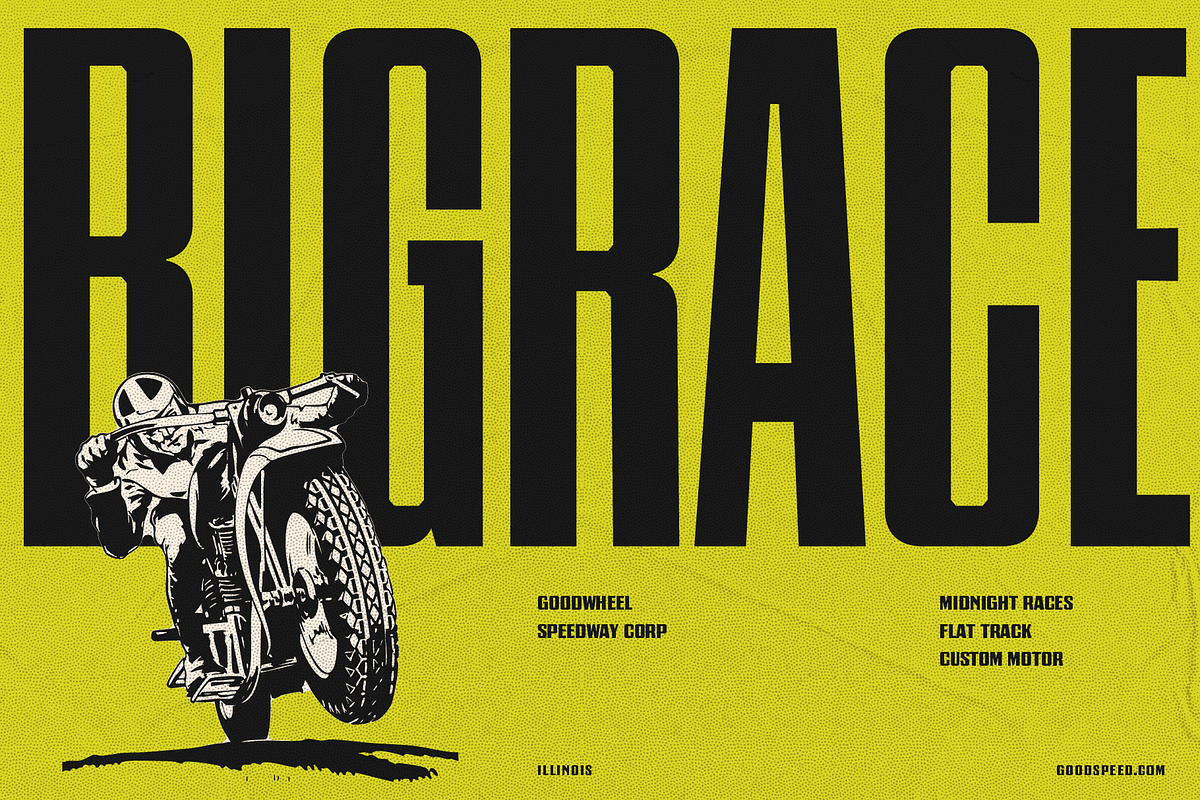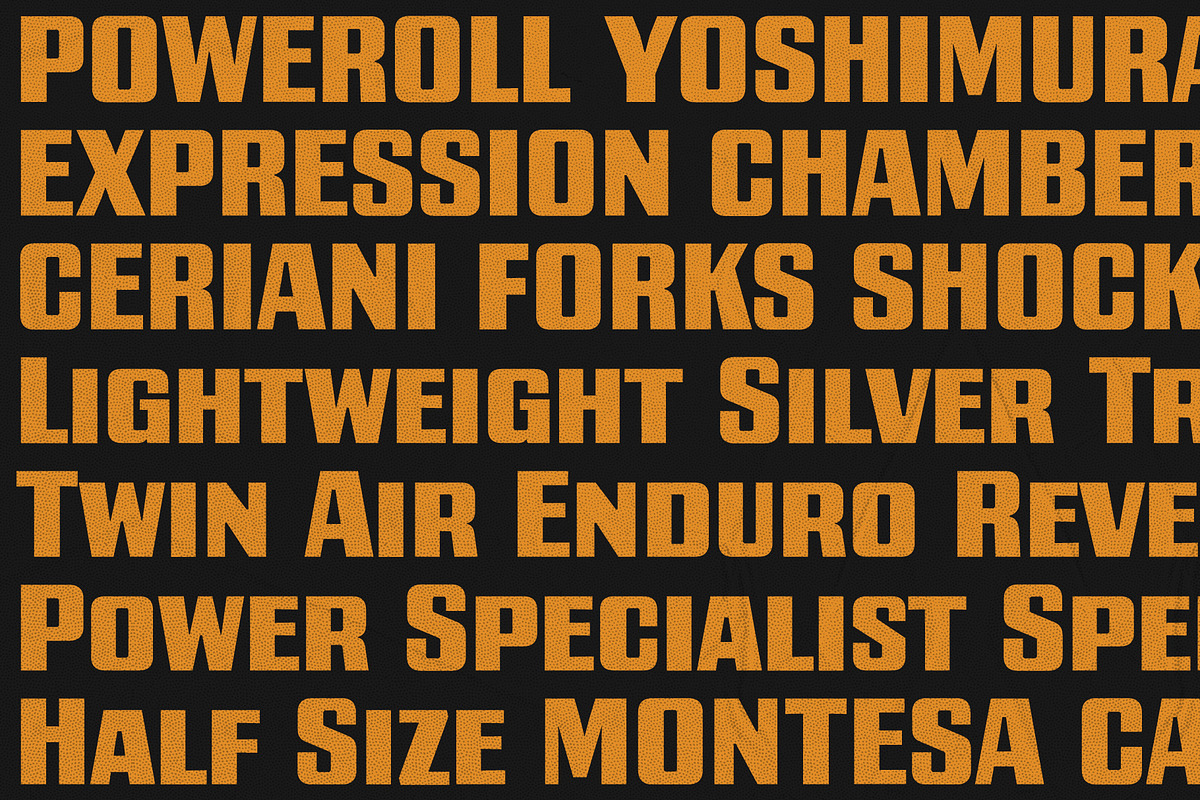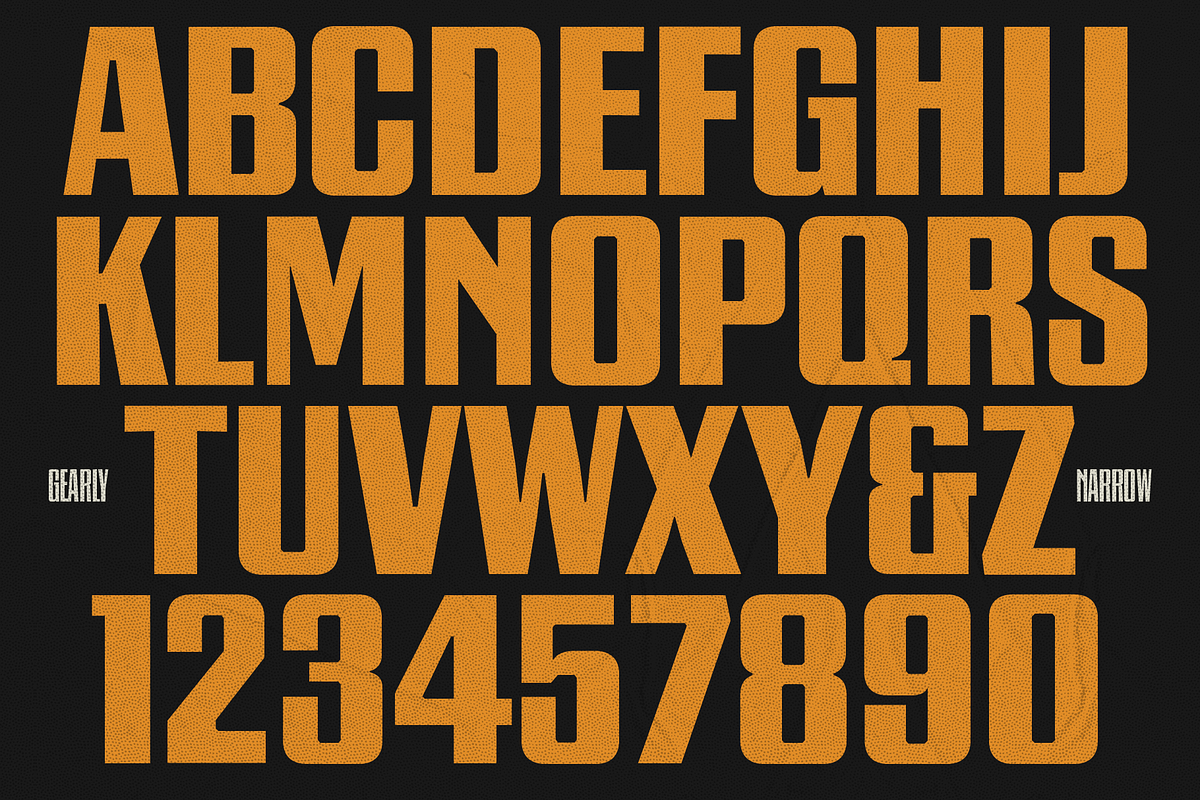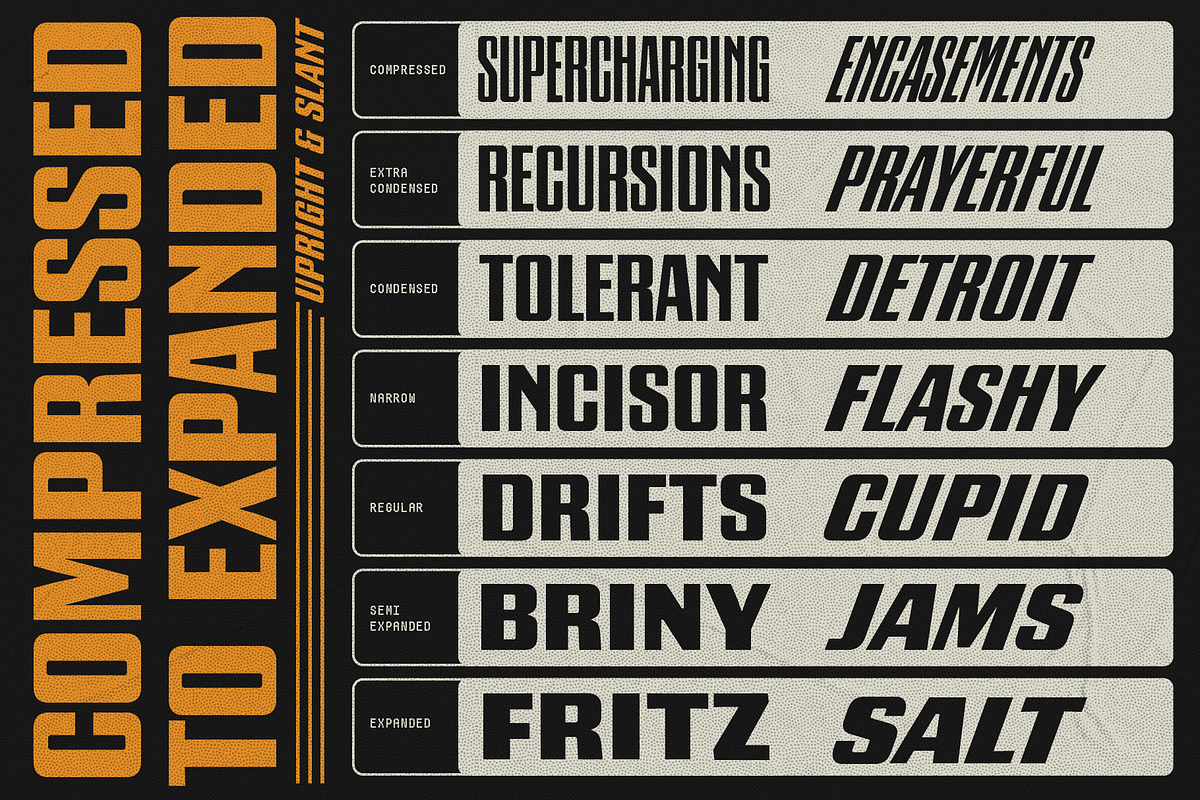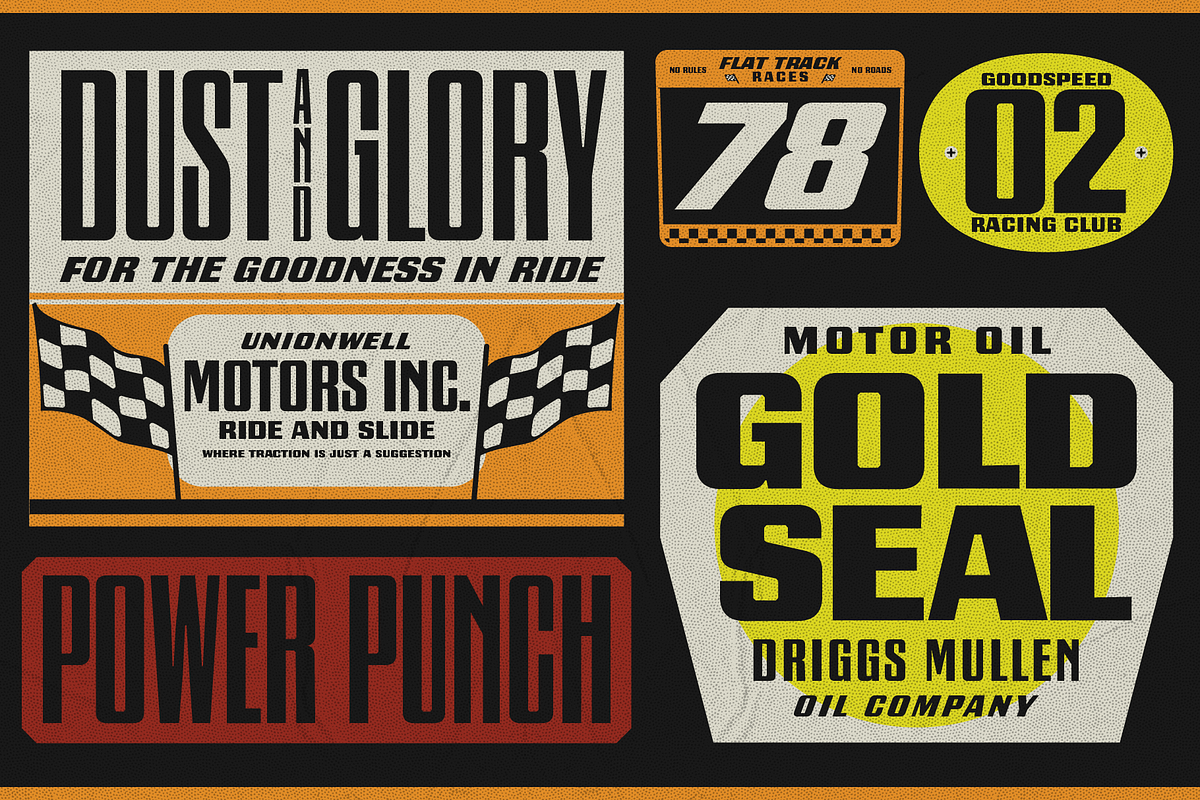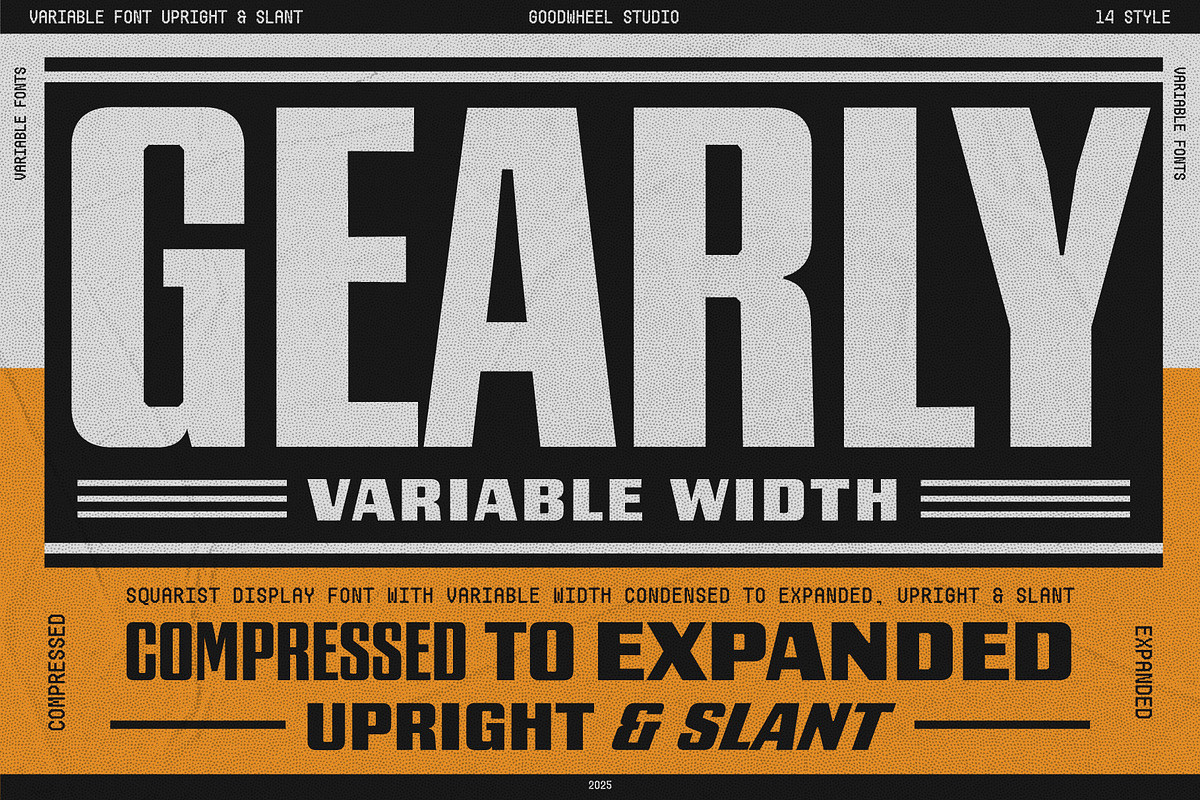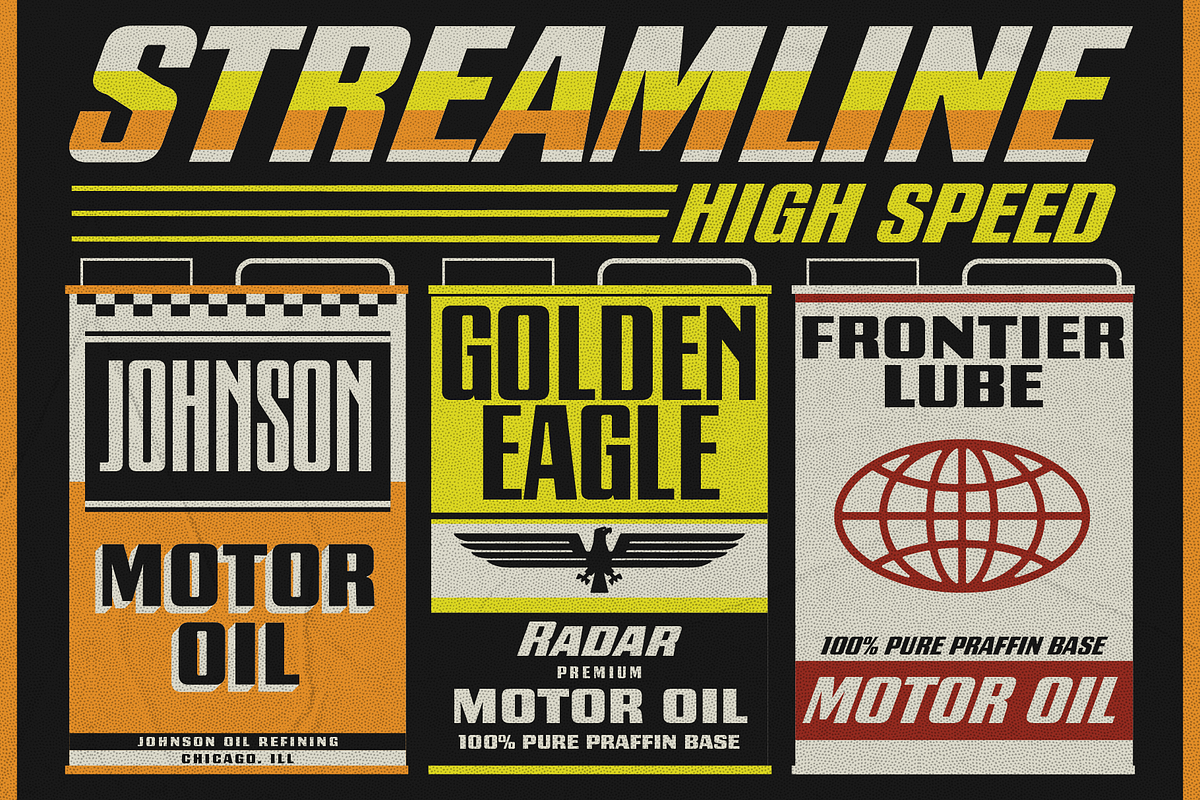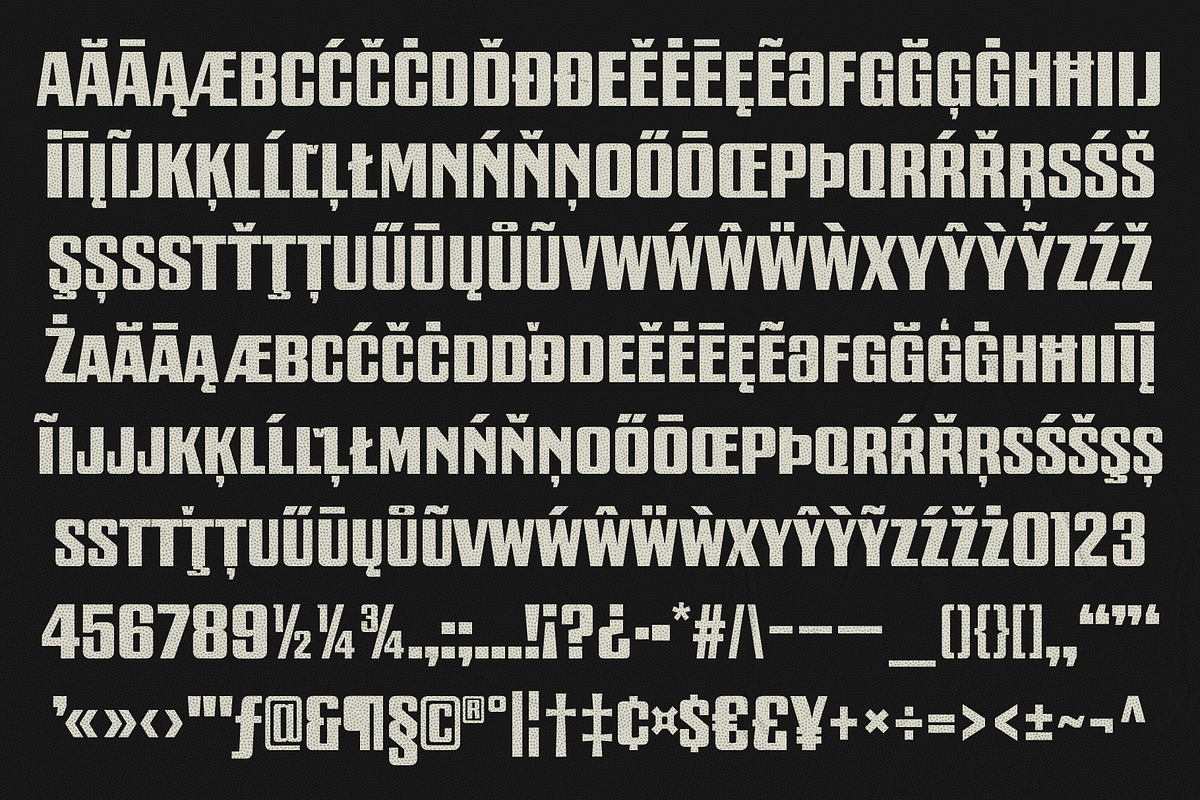
Gearly Variable
Gearly is a bold square display typeface built for strong visual impact. It comes in 14 styles, from Compressed to Expanded, each available in a Slant version for added flexibility. The variable font includes Width and Slant axes, allowing precise control to fit any layout or space.
Designed for headlines, posters, logos, and display typography, Gearly delivers consistent strength and clarity across all sizes and formats.